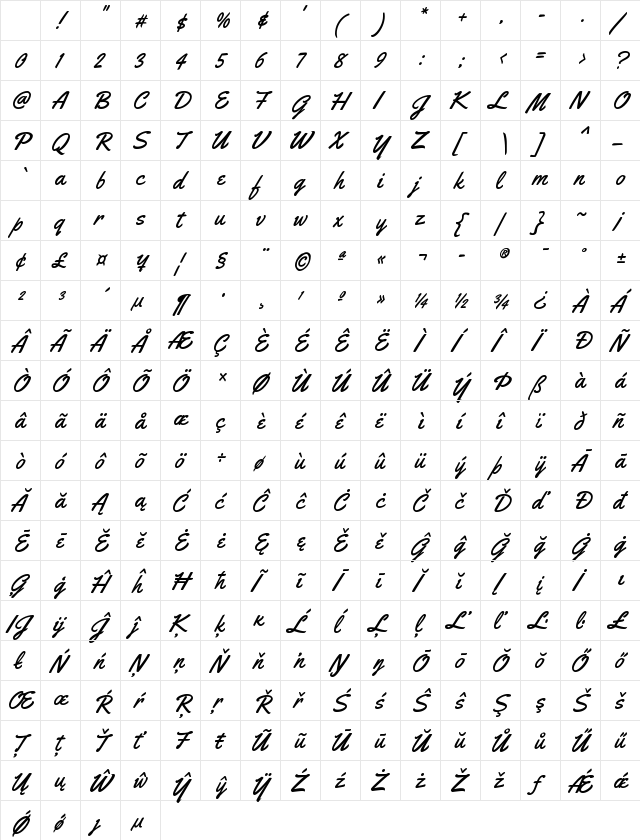
Yellowtail Regular
Design Context for Yellowtail
Yellowtail is a composed and adaptable typeface that performs quietly and consistently across a wide range of design contexts.
Pro Tip: Use Yellowtail in both headline and body roles to test its range before committing to a single application.